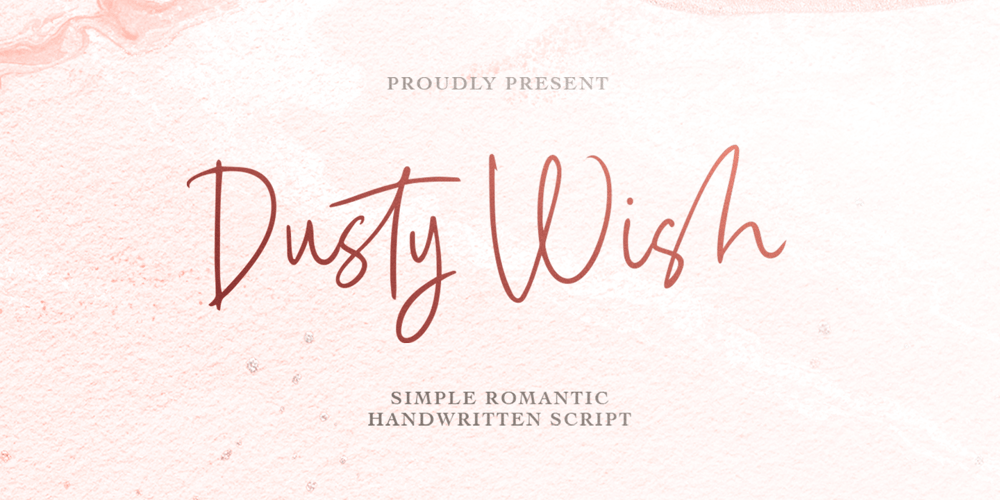
Dusty Wish Font Family was designed by Sarid Ezra, Dzikrul Aulia and published by Bale Type. Dusty Wish contains 1 styles and family package options. Dusty Wish is a simple and romantic handwritten font. You can use this font for any project, such as branding, quotes, logo, and for complimentary to your another font. You can get your design looks more manually handwritten. This font also support multi language.